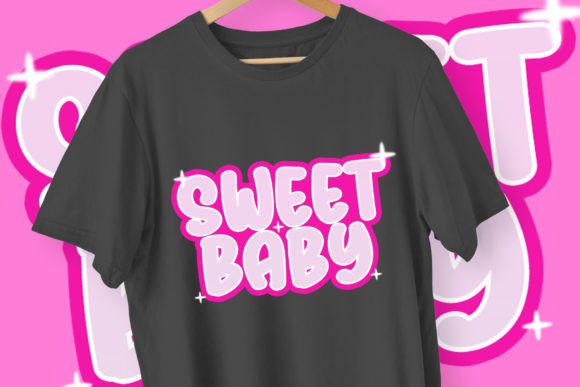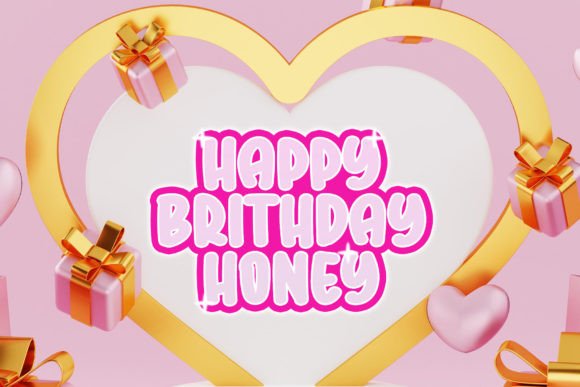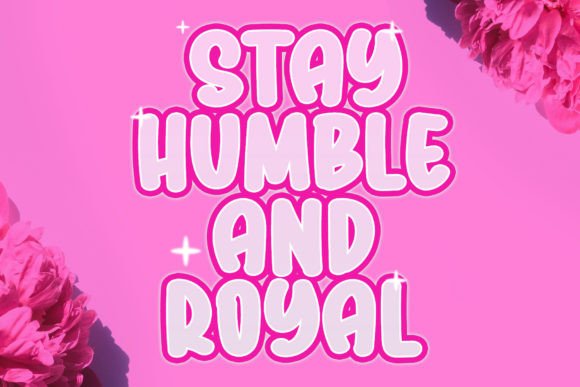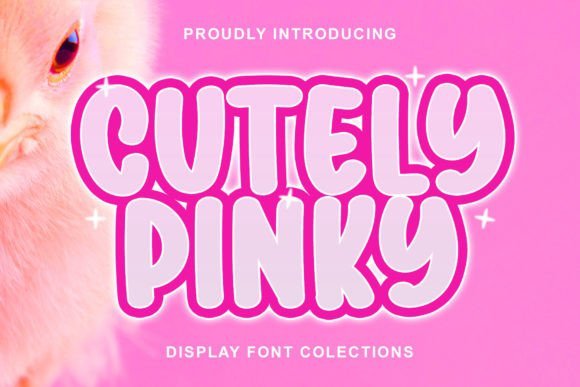
Introduction to Cutely Pinky Font
Cutely Pinky is a robust font designed to draw attention and highlight any project that requires a bold feel.
It looks powerful and is created to add a vibrant touch to your sport-inspired designs Suitable for sports design, team, jersey, league, movie, documenter, film, logo, poster, game, book cover, headlines, title, and many more projects.